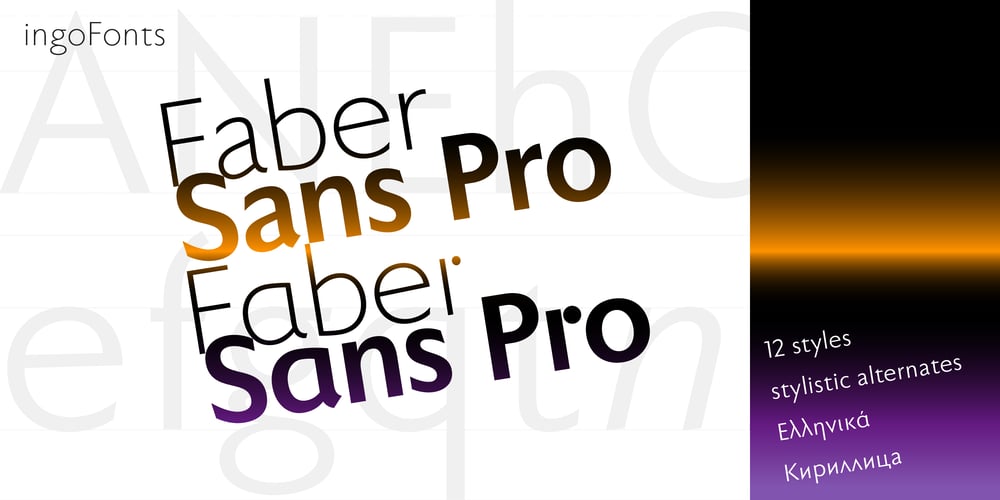
Faber Sans Pro Font Family was designed by Ingo Zimmermann and published by Ingo. Faber Sans Pro contains 12 styles and family package options. A classic-modern sans serif appearing in two forms — ”standard“ and a ”stylistic alternate“ with uncial script-orientated characters which give the font a completely different ”look.“Faber Sans is a sans serif in the classic-modern style of type creations of the early 20th century — godfathered by Futura from Paul Renner and Gill Sans from Eric Gill. Unlike classic sans serifs, Faber Sans includes a ”true“ italic. Faber Sans Pro will perfectly pair with the accompnying Roman Faber Serif Pro.